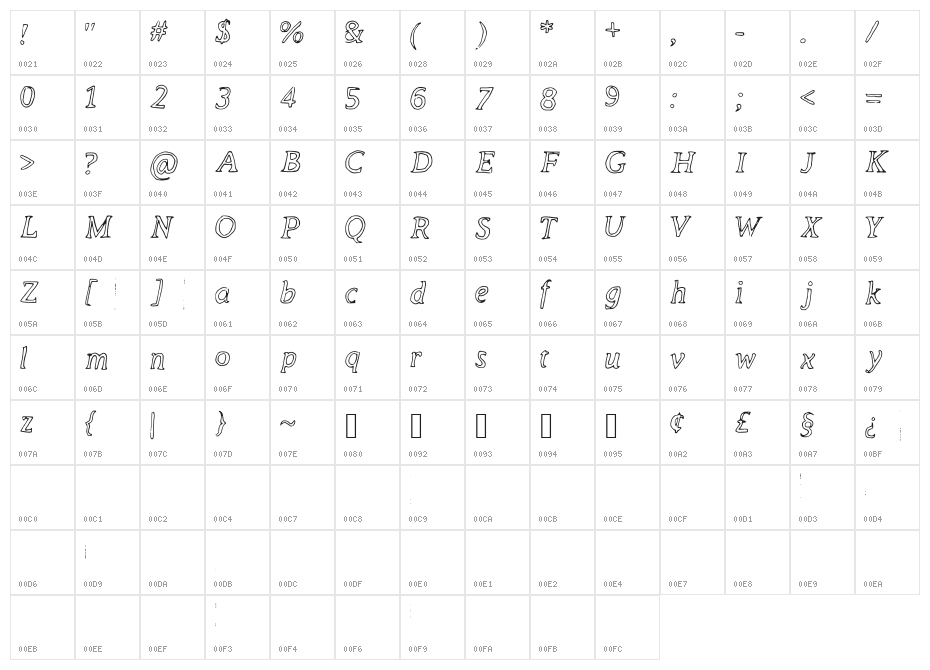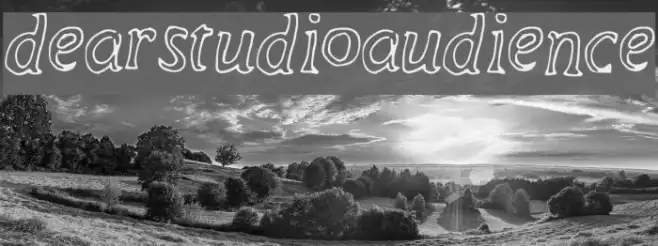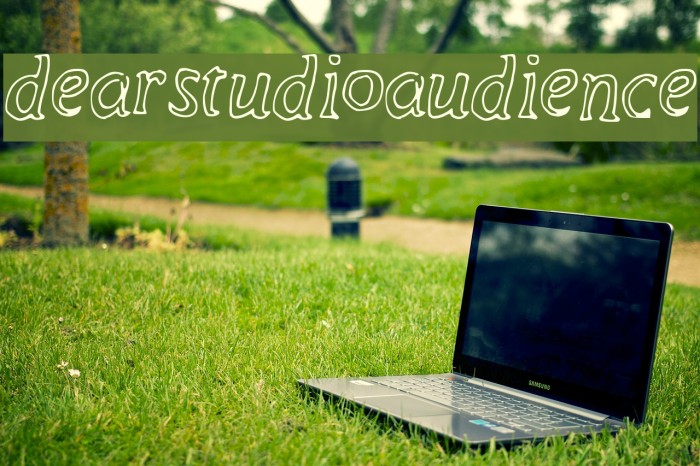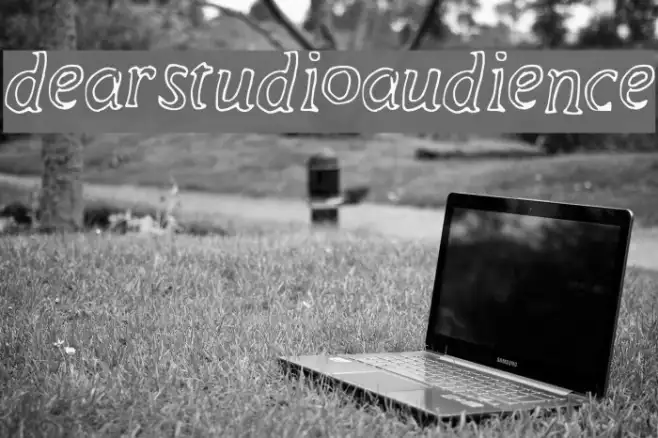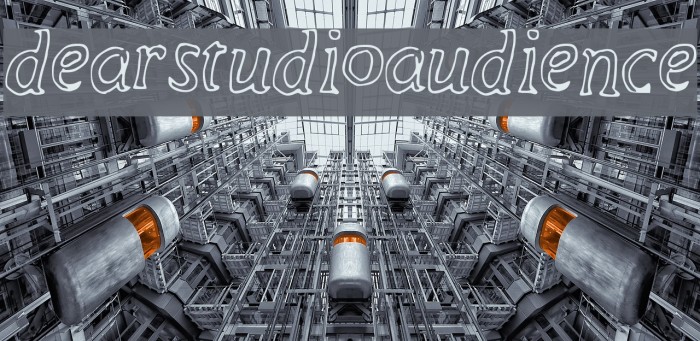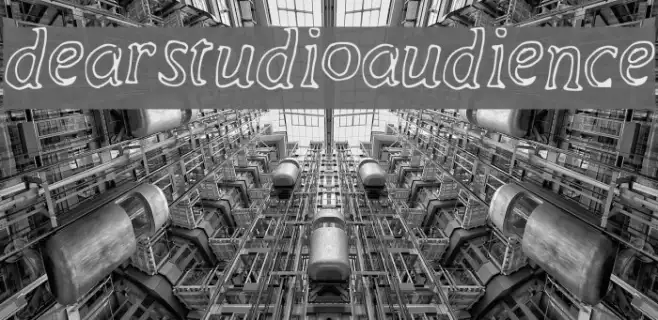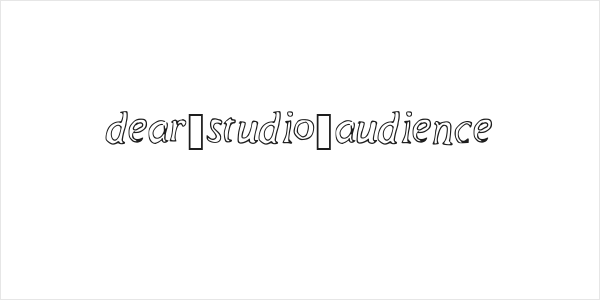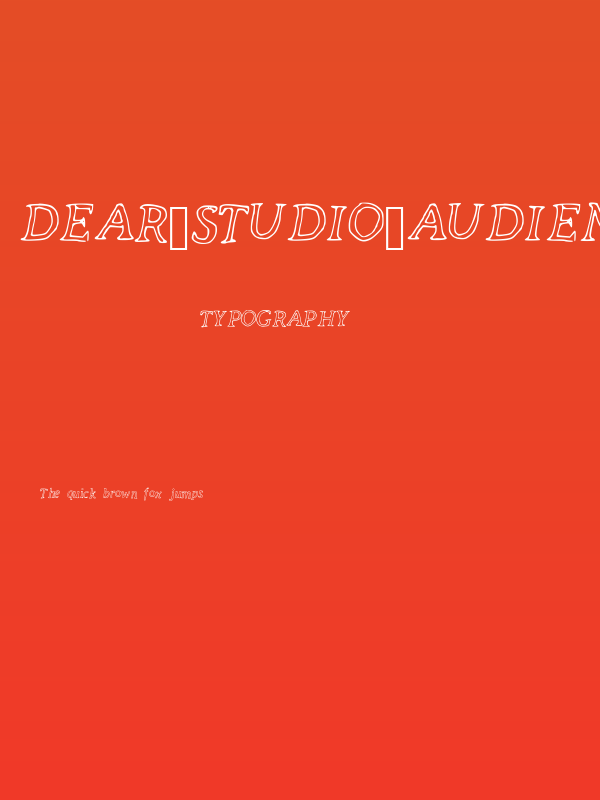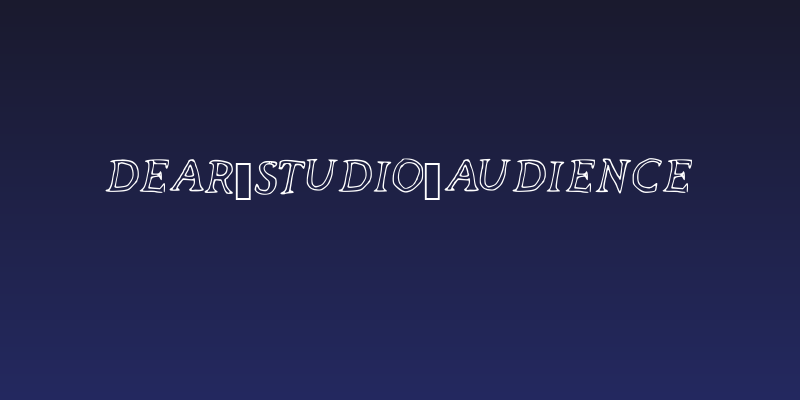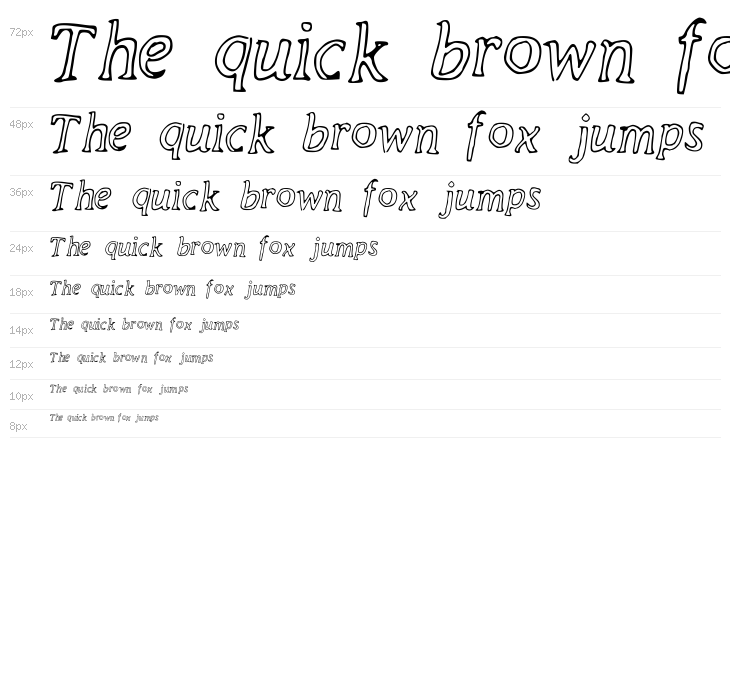
dear_studio_audience Font
dear_studio_audience Description
This font features a playful and dynamic style with a hand-drawn appearance. The characters have a slightly irregular and whimsical design, giving them a unique and artistic flair. The uppercase letters are bold and prominent, while the lowercase letters maintain a consistent flow with a touch of elegance. Numbers are clear and easily distinguishable, and the special characters add a quirky touch to the overall design. The font's strokes are moderately thick, providing a medium contrast that enhances readability while maintaining its decorative appeal.
| Use Case | Headlines, Logos, Artistic projects |
| Proposed Projects | Ideal for creative projects such as children's book covers, playful branding, artistic posters, and unique invitations. |